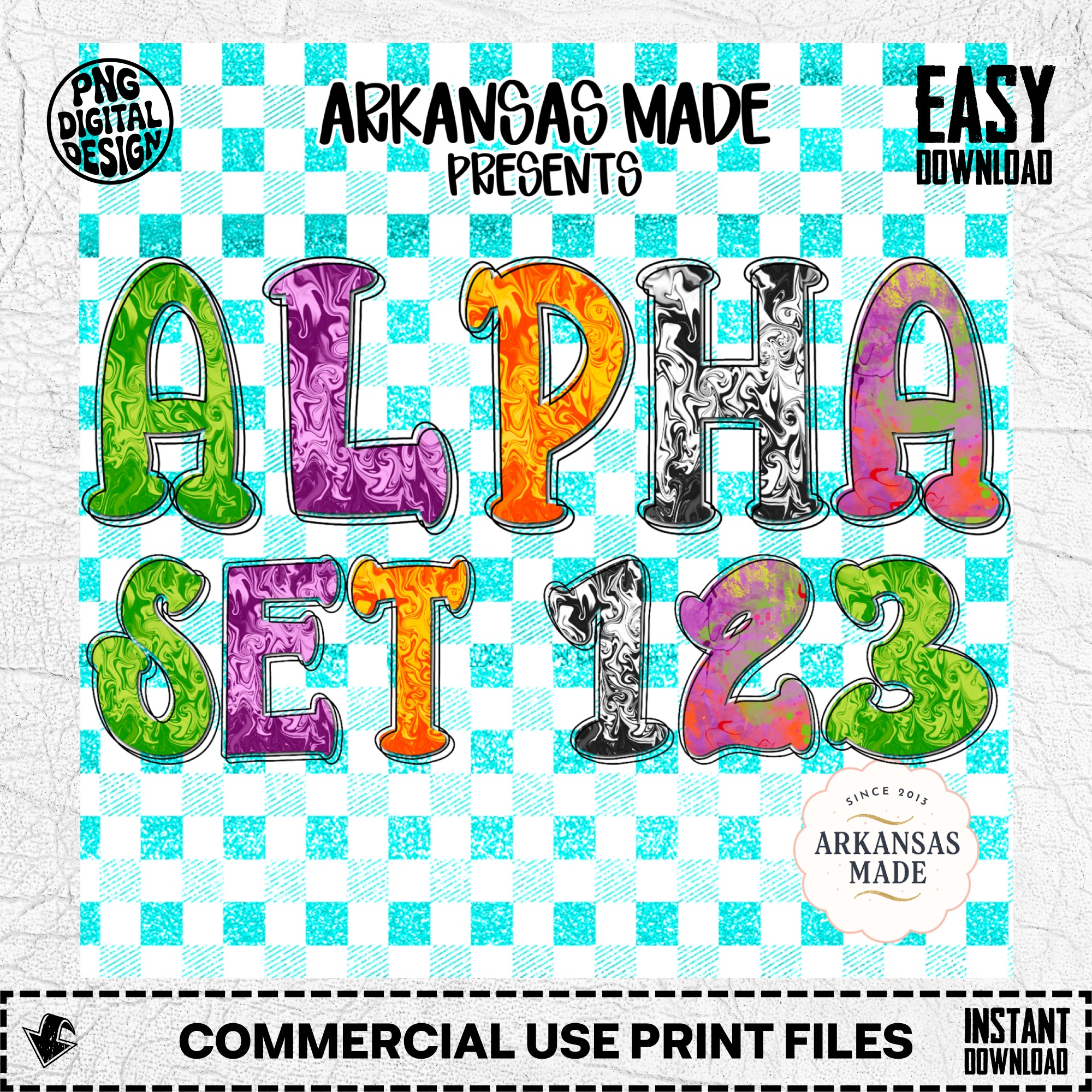
Halloween Alphabet Set PNGs, Spooky Marbled Letters & Numbers, Vibrant Digital Download Font for DIY Crafts
Unleash your creativity with this vibrant Halloween Alphabet Set PNGs, featuring spooky marbled and paint splatter letters perfect for digital crafts. Dive into the spirit of the season with these unique, expressive characters and numbers. Ideal for crafters, designers, and DIY enthusiasts creating custom apparel, party decorations, or personalized gifts. Elevate your autumn and holiday projects!